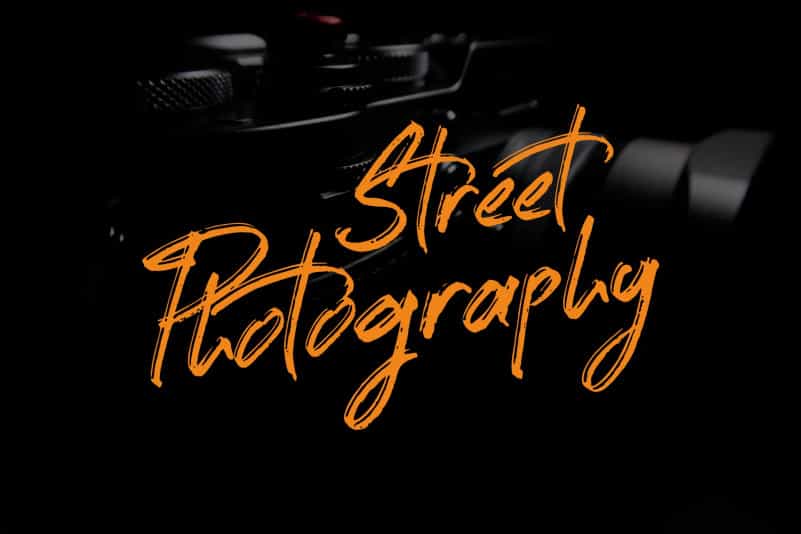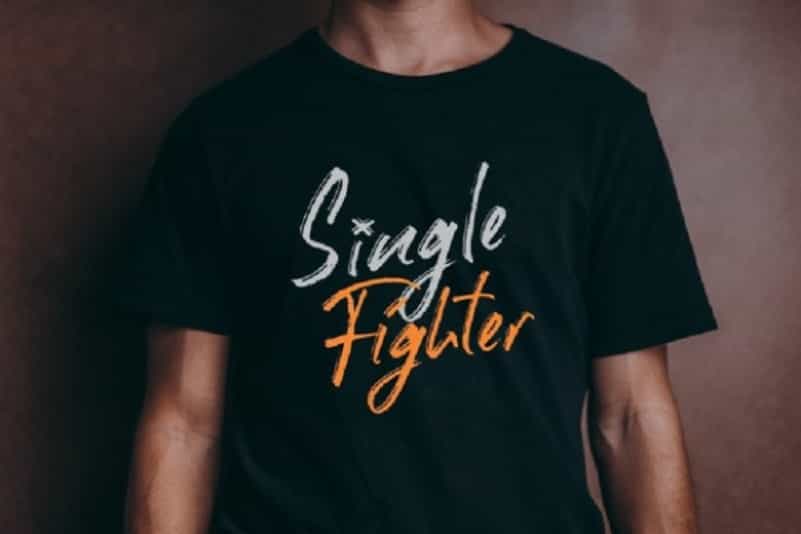
Discover Street Photography Brush Font, part of the Brush collection—a versatile and unique font perfect for adding a personal touch to your projects. Download it for free and enjoy crafting designs with style, from invitations to social media posts. This font is available exclusively for personal use, giving you the freedom to create without limits. Unlock your creativity with Street Photography Brush Font today!
Street Photography is a hand brushed font that looks quite natural. Work great for any design needs: logo, branding, modern advertising design, logos, poster quote and book/cover Title. Editorial design website/blog card custom mug pillow t-shirts any hand-lettered needs etc.